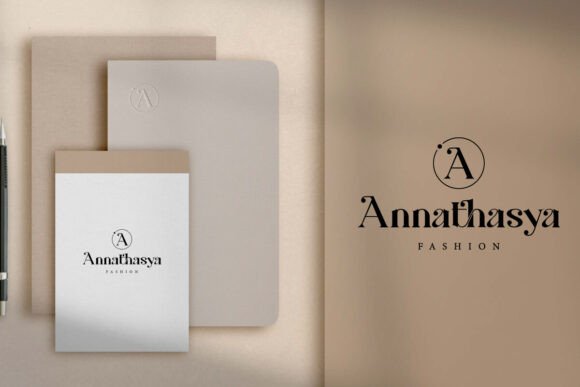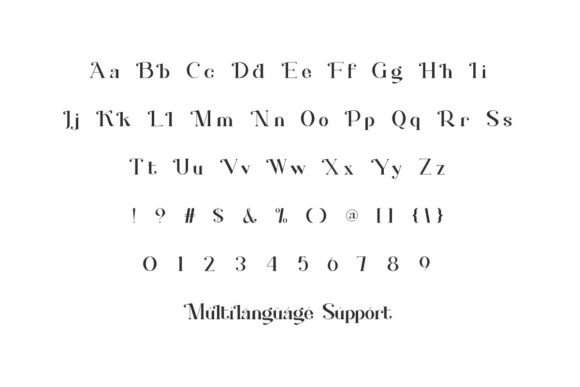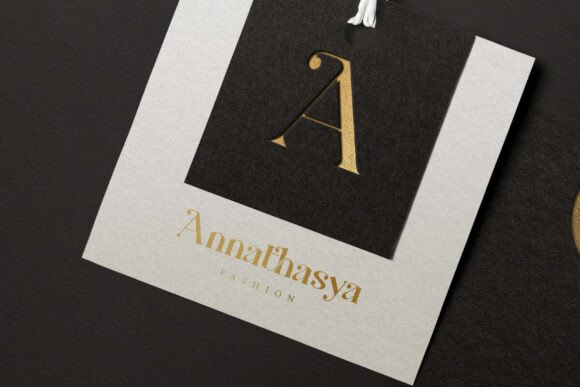
Introduction to Journeywork Font
Journeywork is an elegant serif font, that features a very delicate and classy look.
👤 Author NihStudio
Not too thin and not too thick, balanced and varied, Journeywork was designed to enhance the beauty of your projects .
Why Choose Journeywork Font?